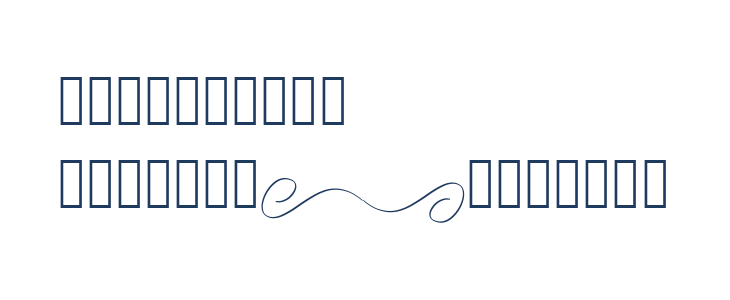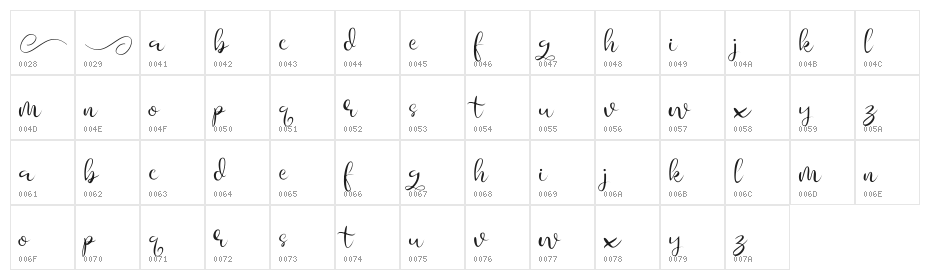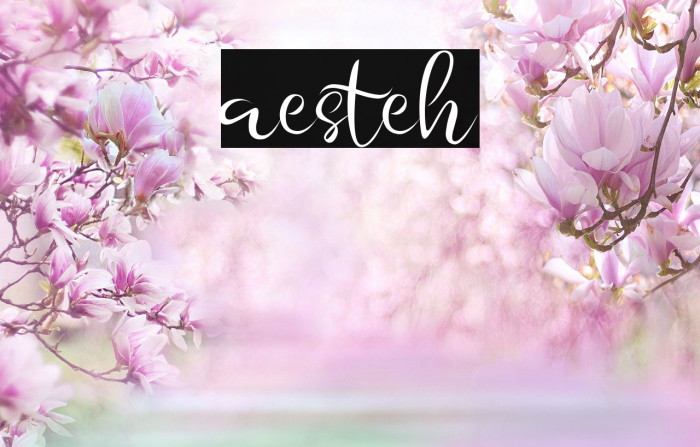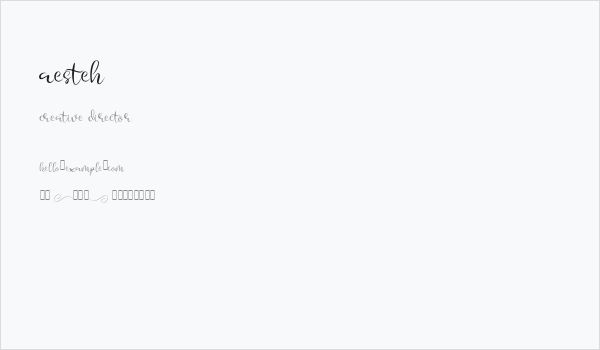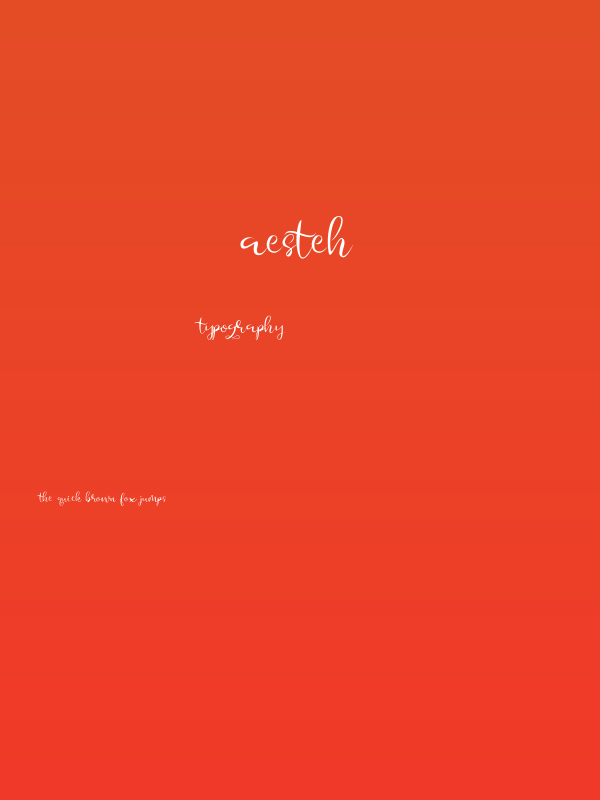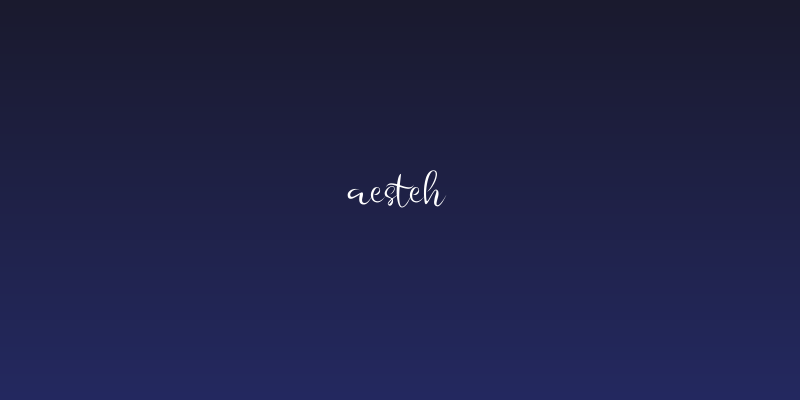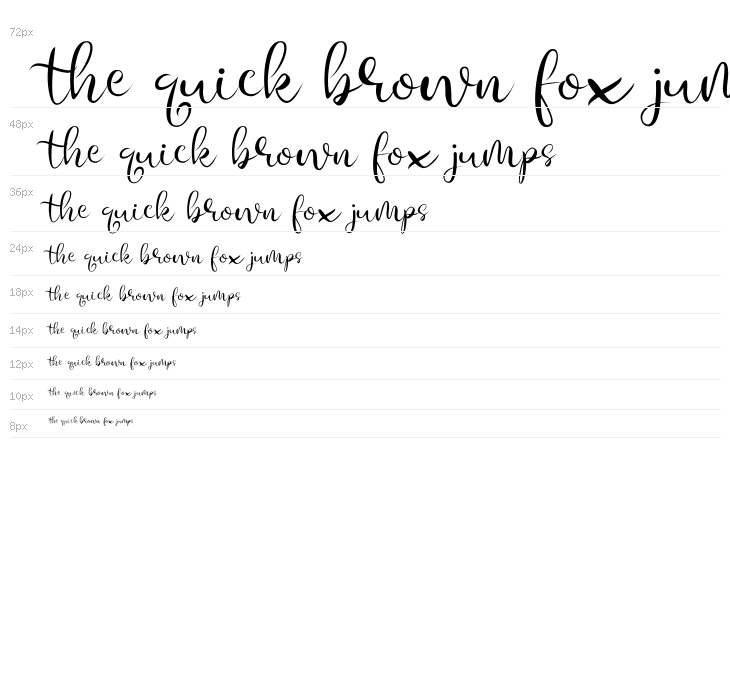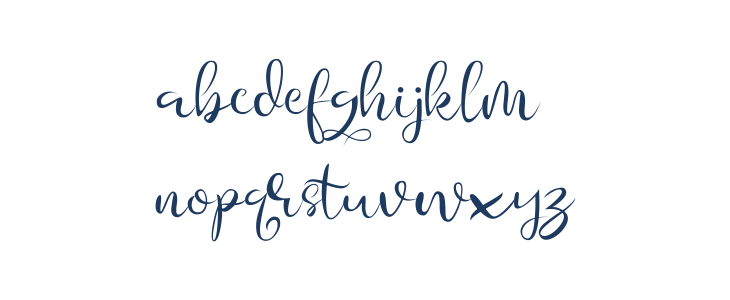
Aesteh Font
Aesteh Description
This font exudes elegance and sophistication with its flowing, cursive style. The characters are intricately designed with smooth, sweeping curves and delicate loops, giving it a graceful appearance. The strokes vary in thickness, adding a dynamic and lively feel to the text. This script font is ideal for creating a sense of luxury and refinement. The overall design is both classic and modern, making it versatile for various applications. Its artistic flair is perfect for projects that require a personal touch or a handwritten feel.
| Overall Style | Elegant and sophisticated |
| Proposed Projects | Ideal for wedding invitations, greeting cards, branding, and elegant packaging designs. |